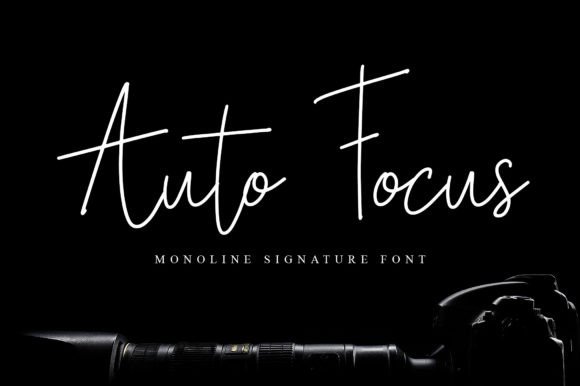
Immerse yourself in the captivating world of Auto Focus, a script font born from the fusion of grace, elegance, and fluidity. Each letter dances across the page with a delicate touch, creating an enchanting symphony of form and beauty.
Auto Focus is not just a font; it's an expression of love, a whisper of romance, a heartfelt declaration etched in digital ink. Its exquisite curves and flourishes evoke the timeless allure of handwritten vows, adding a touch of intimacy to every word.
Imagine your wedding invitations adorned with Auto Focus, the words "I do" gracefully intertwined, promising a lifetime of togetherness. Or envision your love letters, each line penned with the elegance of Auto Focus, conveying the depth of your emotions with every stroke.
With Auto Focus, you can transform the ordinary into the extraordinary. Design social media posts that captivate your audience, create logos that exude sophistication, or craft marketing materials that leave a lasting impression. The possibilities are as endless as your imagination.
Auto Focus is more than just a font; it's a creative companion, a partner in your design journey. Let your words take flight with Auto Focus, and experience the magic of typography like never before.